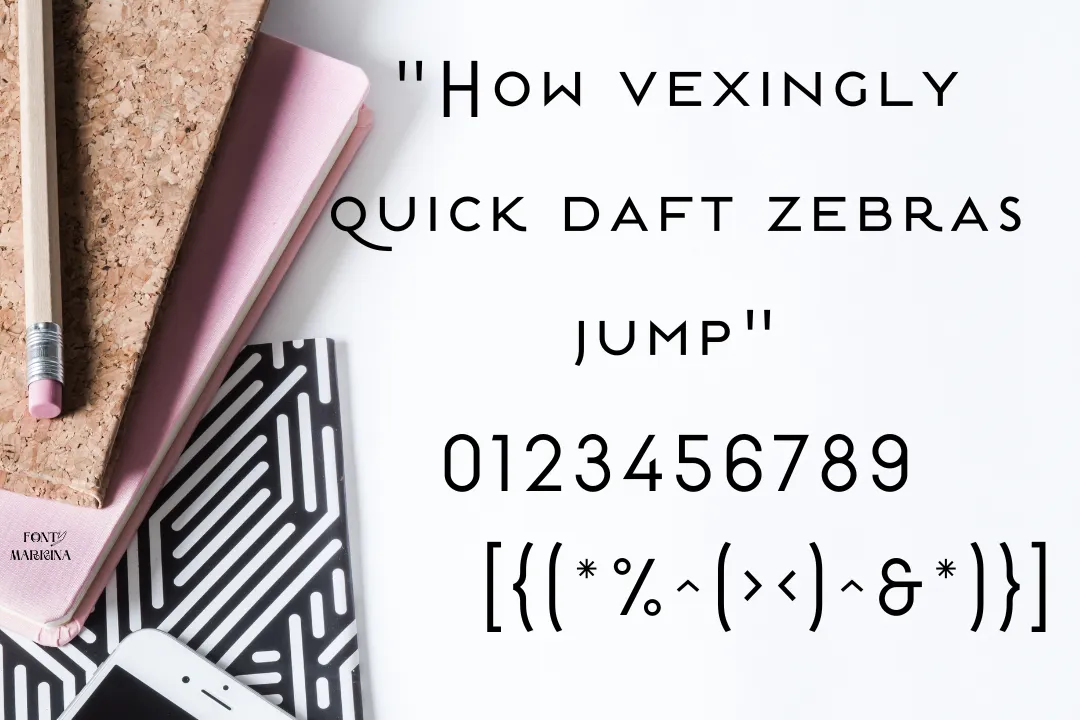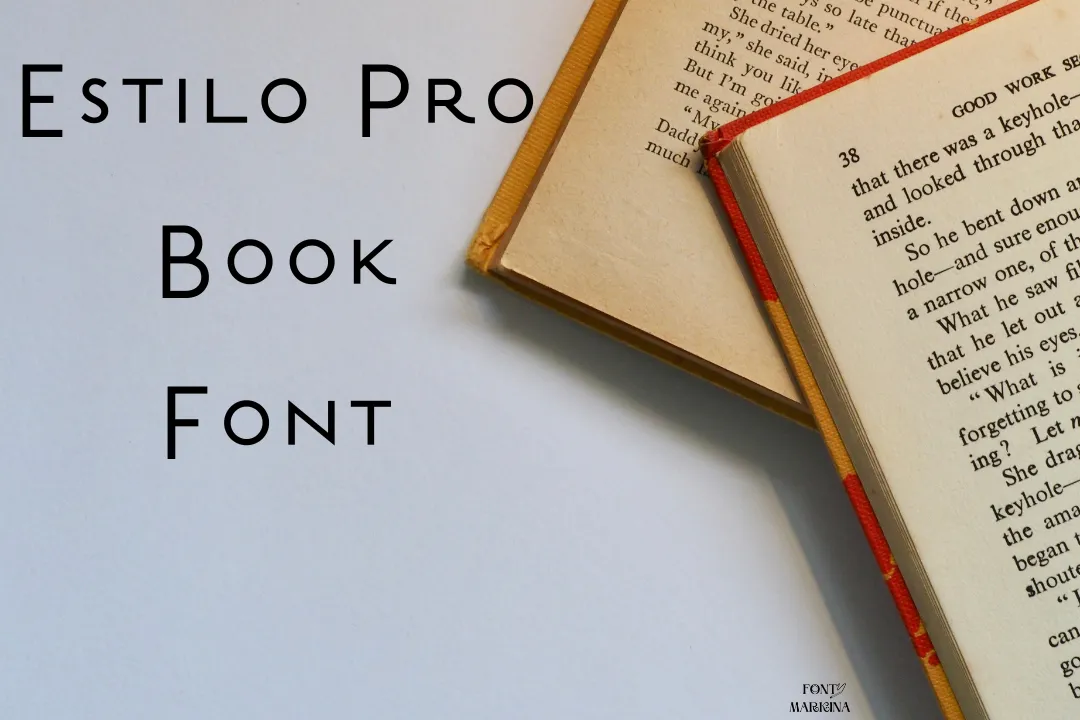
Estilo Pro Book Font is a long swash sans serif typeface. The main and original creator of this texture is Dino dos Santos. This traditional typeface has only one advanced style that increases its worth in the typography field.
One fascinating feature of this typeface is that it contains six weights including Hairline, Extra Light Italic, Light, Book, Medium, and Bold. But the bold weight is totally different from the other ones. Many alternative fonts to this font family are obtainable on google fonts.
Estilo Pro Book Font View
| Name | Estilo Pro Book Font |
| Designer | Dino dos Santos |
| Style | Sans Serif |
What is the font family of Estilo Pro Book Font?
This font comes in a stylish sans serif family and it comes in Light, Book, Medium, and bold styles.